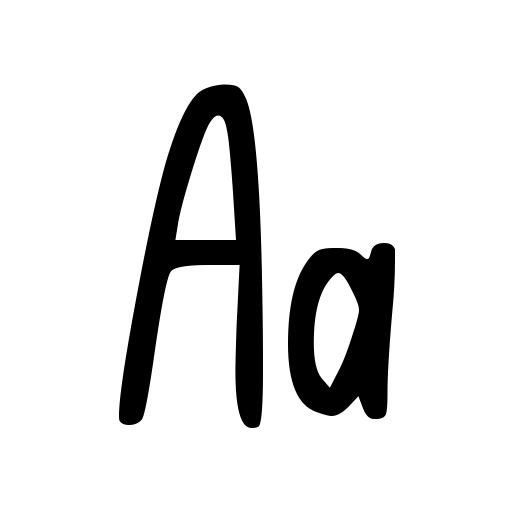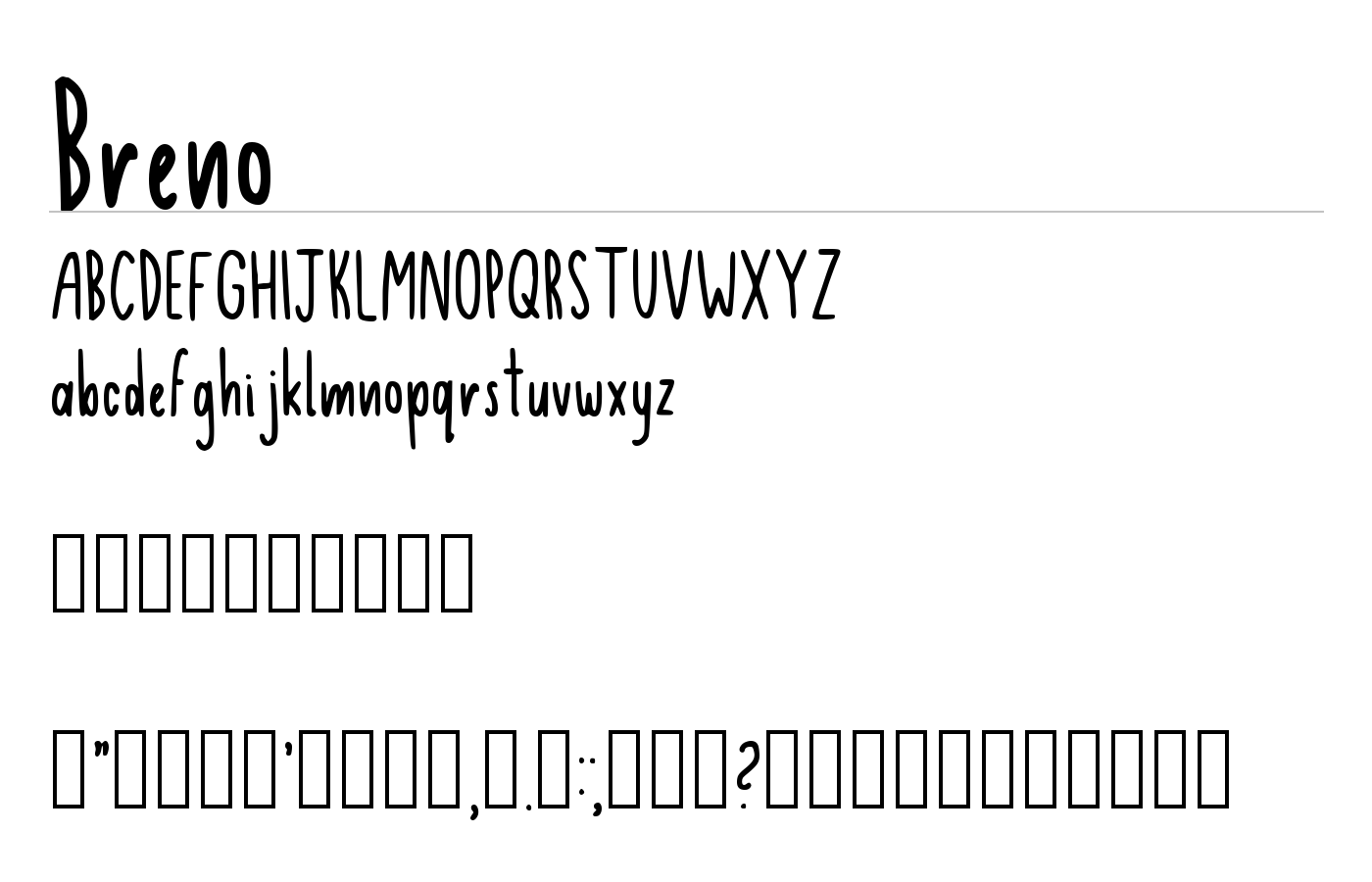
Breno is a playful and casual handwritten sans serif font with tall, narrow letterforms that give it a distinctive, friendly character. Its light weight and simple, slightly irregular strokes create an approachable, informal feel, making it ideal for creative projects, children’s books, and branding that requires a personal touch. This font works best in headlines or short text where a fun and lively atmosphere is desired.
Breno Font
About Breno Font